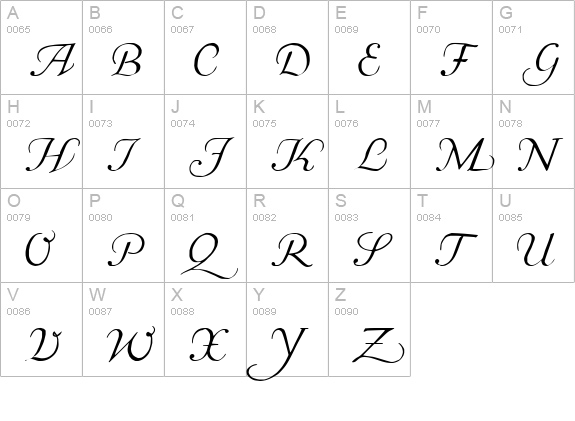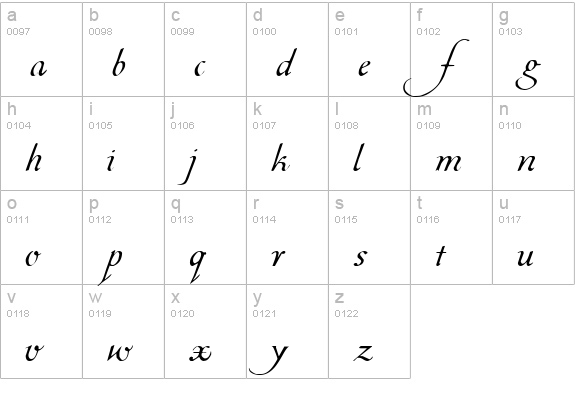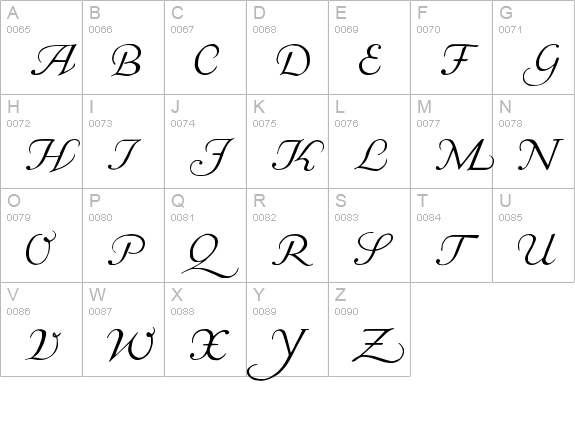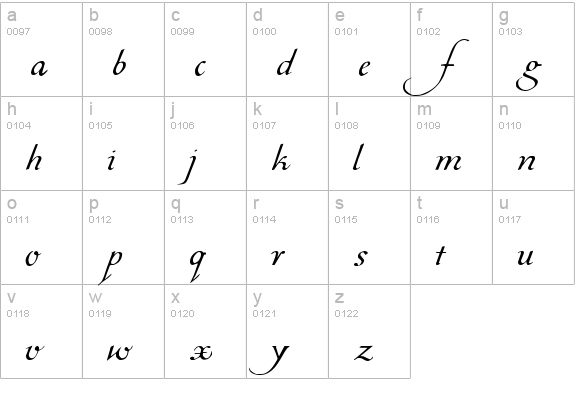
Corabael Font Details
Corabael font is a stunning display typeface that exudes elegance and sophistication. With its intricate details and graceful curves, this font is perfect for adding a touch of luxury to your projects. Whether you're designing a wedding invitation, a logo, or a branding project, Corabael font will make your text stand out and captivate your audience. The best part? Corabael font is completely free to download at FontsMarket.com. This means you can add this beautiful font to your collection without breaking the bank. Don't miss out on the opportunity to enhance your designs with the timeless beauty of Corabael font. Download it today and let your creativity shine!